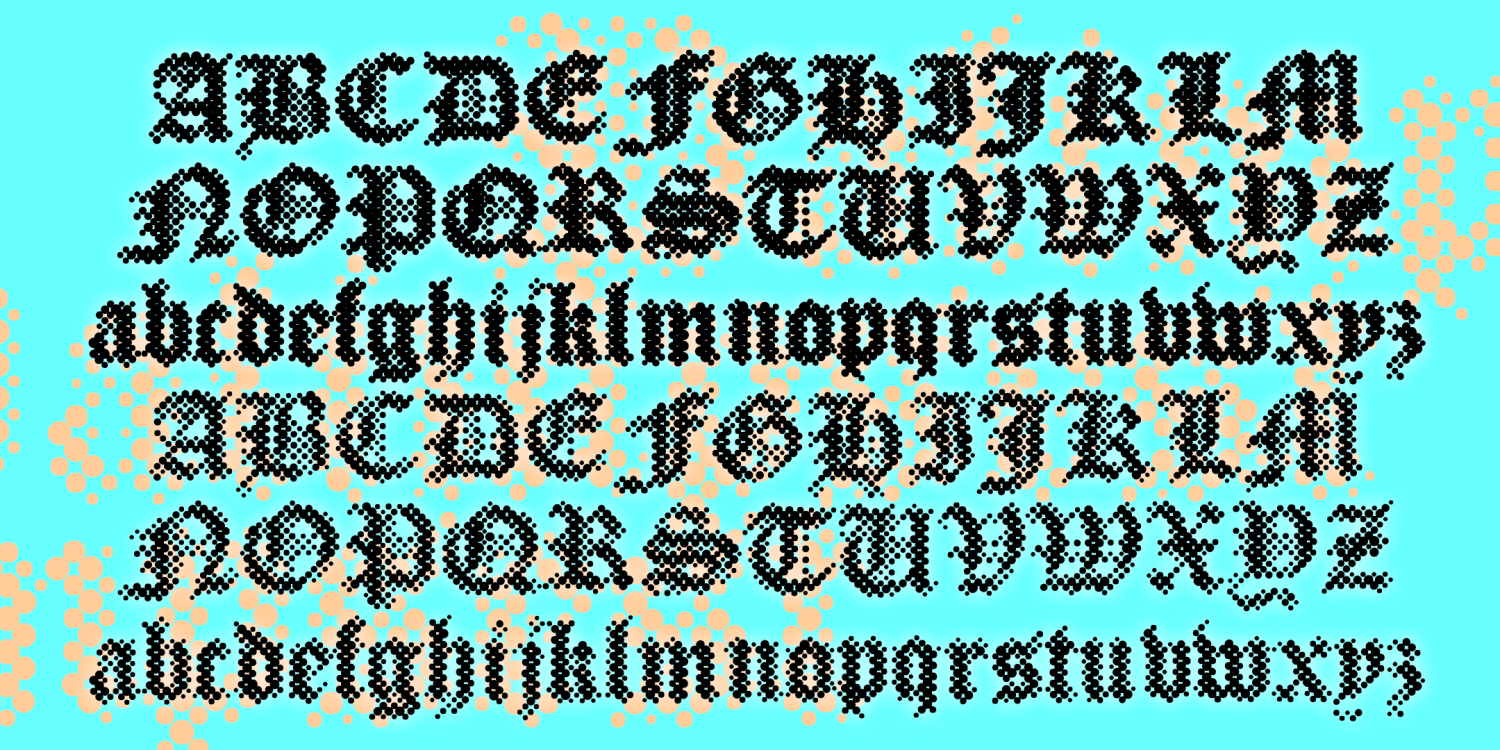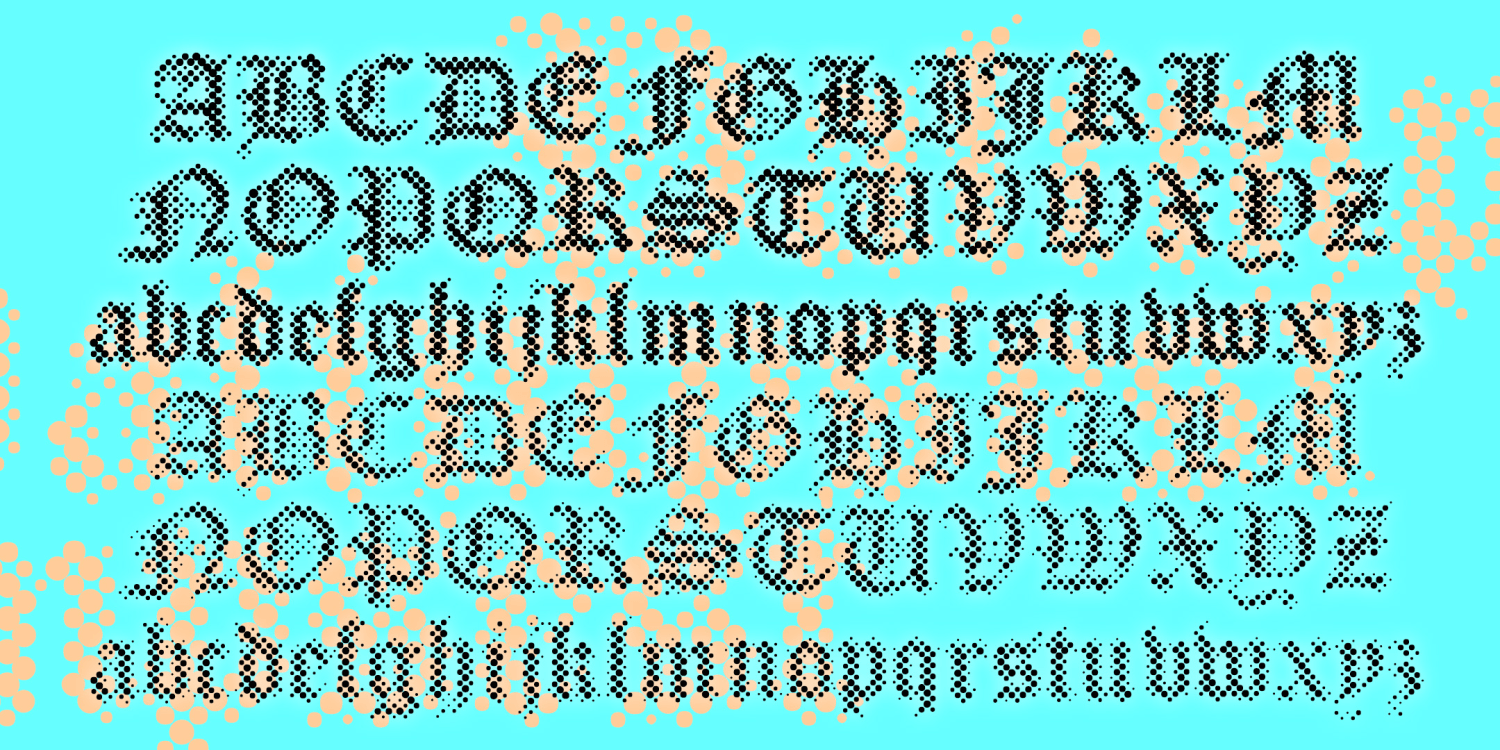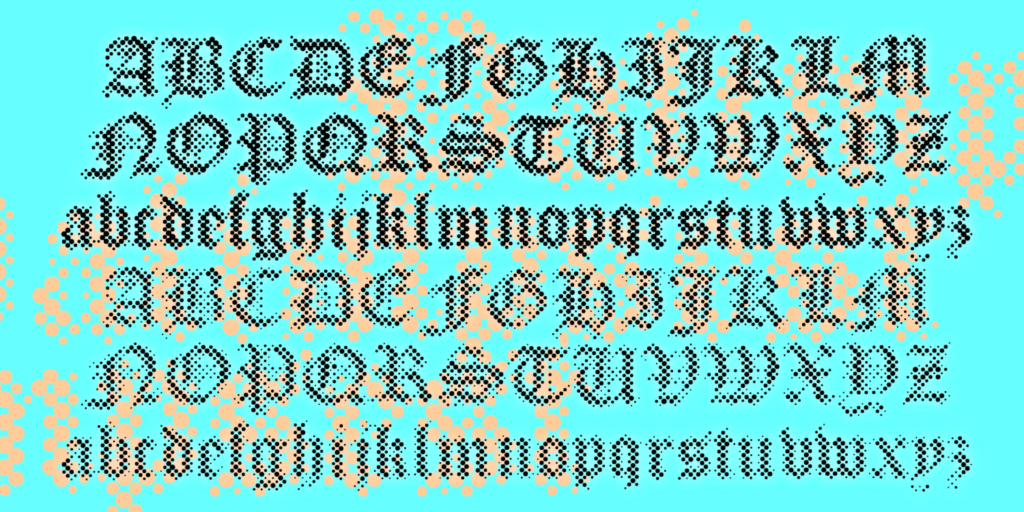
Palimpsest
About Palimpsest
PALIMPSEST combines the letterforms of an "Old English" font with the texture of a Benday or halftone dot screen. Modern + Medieval. Pop + Parchment. At first glance it appears somewhat blurred or faded but is very cleanly rendered from vector…